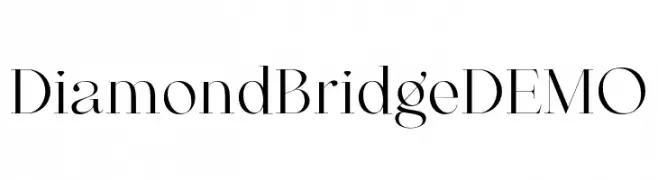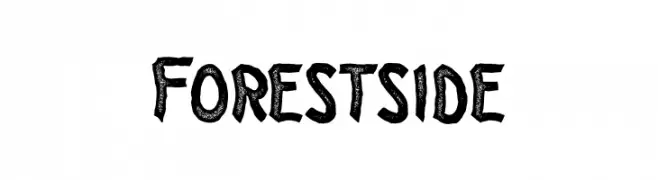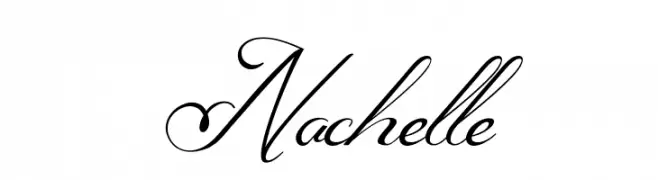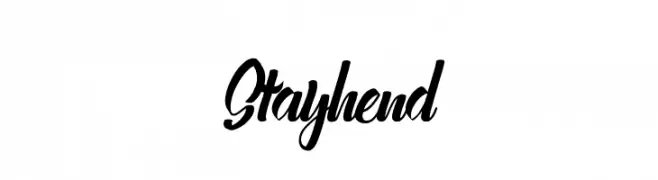
An elegant script font with flowing, interconnected letters and intricate swashes.
An elegant, flowing script font with graceful curves and loops.
An elegant script font with ornate flourishes and flowing lines.
An elegant script font with flowing cursive style and intricate swashes.
A sophisticated script font with flowing, ornate letters and elegant swashes.
An elegant script font with flowing, interconnected characters and ornate flourishes.
A bold, elegant script font with flowing, cursive letterforms.
An elegant, flowing script font with thin, elongated strokes and graceful curves.
A rugged, textured font with a hand-carved, organic feel.
A high-contrast serif font with elegant, sharp serifs and a modern classic style.